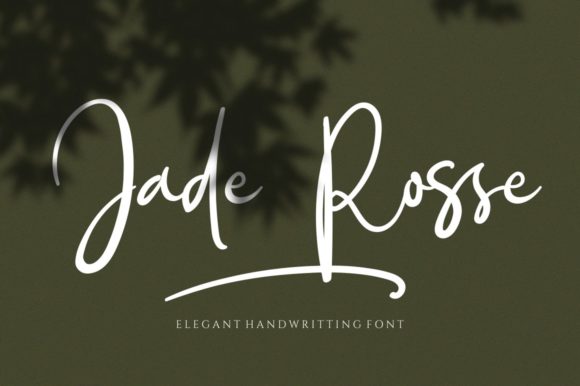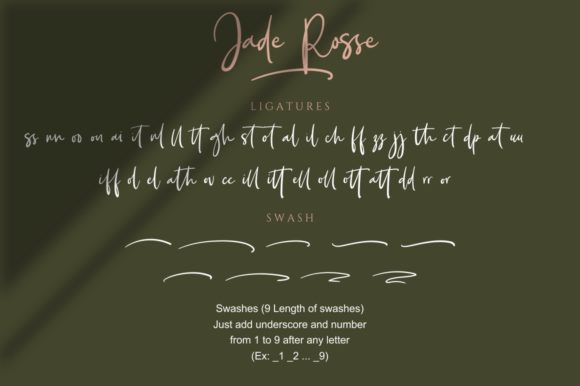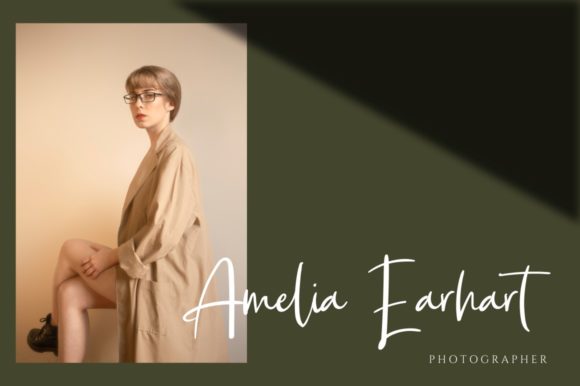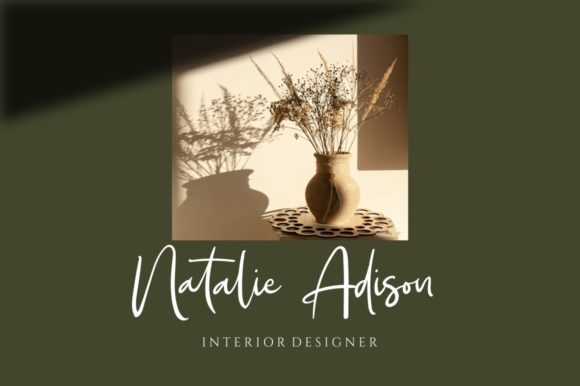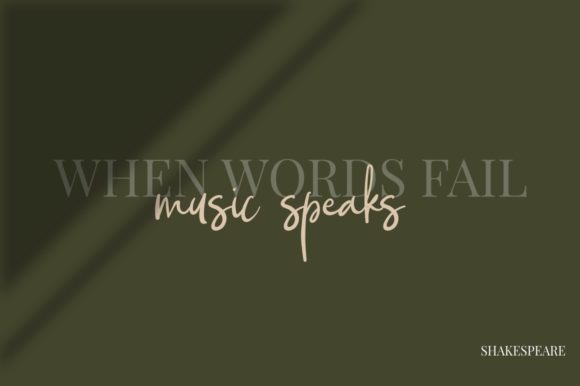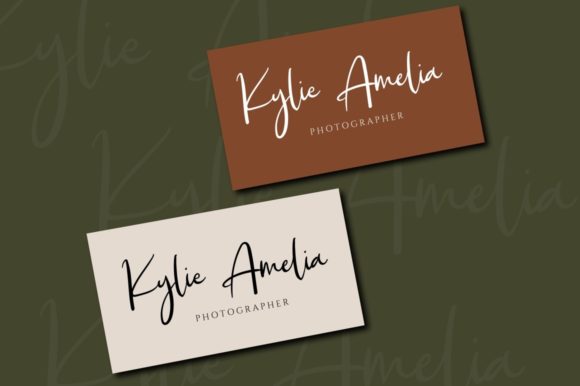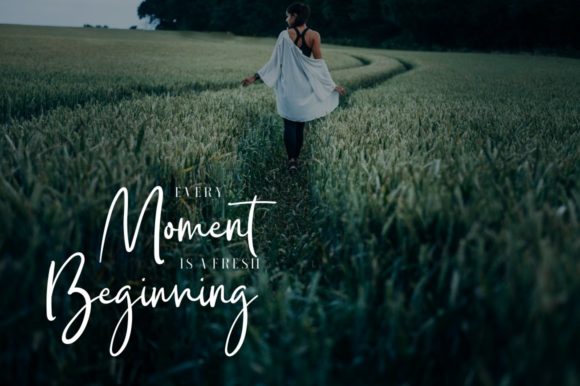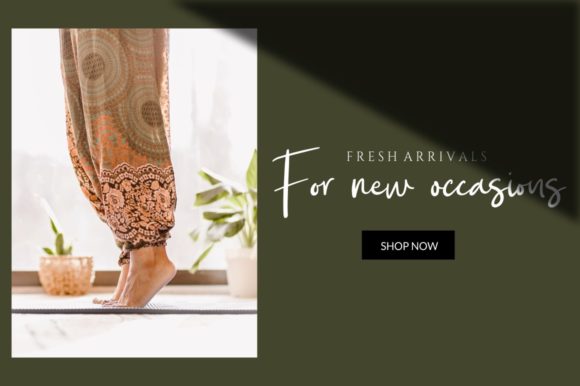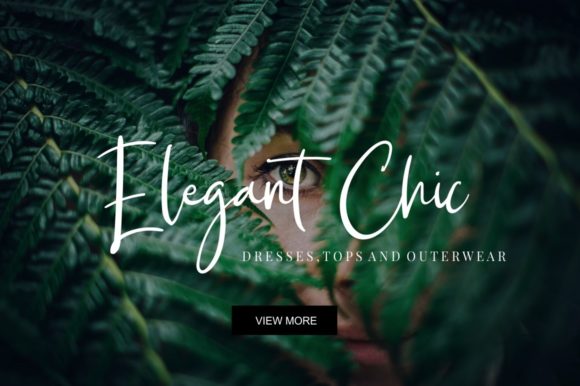
Jade Rosse Font
About Jade Rosse Font
Jade Rosse is a fashionable and dainty script font that exudes style and elegance. With its versatile design, this font is sure to captivate and inspire. Jade Rosse is PUA encoded, granting you effortless access to all its glyphs and swashes, allowing for seamless customization options.
The fashionable nature of Jade Rosse sets it apart as a font that is both trendy and sophisticated. Its dainty script style adds a touch of delicacy and refinement to your designs. Whether you’re working on fashion-related projects, branding materials, or creating stunning invitations, Jade Rosse brings a sense of fashion-forwardness that resonates with the contemporary design trends.
Jade Rosse’s versatility is one of its greatest assets. Its dainty and elegant appearance allows it to adapt effortlessly to a wide range of design styles and purposes. From logos and branding to social media graphics and event invitations, Jade Rosse adds a touch of sophistication and allure, making your designs truly spectacular.
With its PUA encoding, Jade Rosse grants you easy access to its extensive collection of glyphs and swashes. This feature enables you to personalize your designs with decorative flourishes and additional design elements, unleashing your creativity and allowing you to create truly unique and remarkable compositions.
Fall in love with Jade Rosse’s incredibly versatile style and let it inspire you to create spectacular designs. The font’s dainty and fashionable aesthetic will elevate your projects, making them stand out with a sense of elegance and sophistication.
In summary, Jade Rosse is a fashionable and dainty script font that offers versatility and elegance. Its PUA encoding allows for easy customization with access to glyphs and swashes. Embrace the beauty of Jade Rosse and let its incredibly versatile style empower you to create spectacular designs that leave a lasting impression.